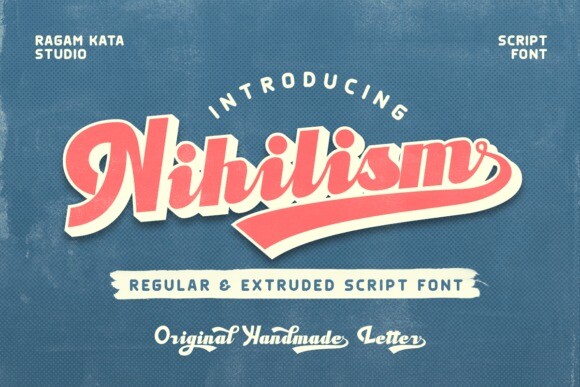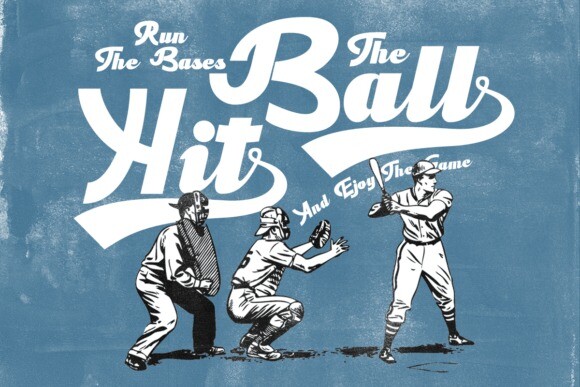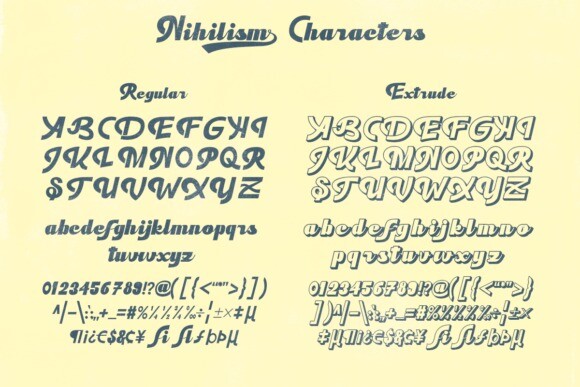
Nihilism Font
Nihilism Font, a meticulously crafted script font that strikes the perfect balance between graceful curves and a distinctive personality. Ideal for crafting logotypes that leave a lasting impression, designing captivating posters, and so much more. Let Nihilism infuse your designs with a touch of charm and style.